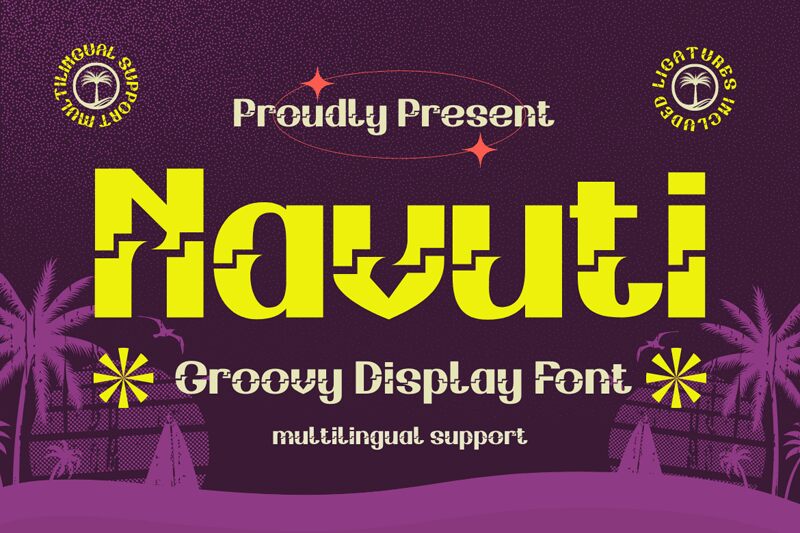
Navuti, designed by Twinletter, is a bold and fun display font that brings a touch of flair to any creative project. Its contemporary design and unique shape make it perfect for branding, product packaging, and editorial work. The bold weight of the font adds a sense of confidence and modernity to any design, making it versatile for a wide range of projects.
With Navuti, you can add an element of elegance and style to your designs, whether you're creating eye-catching logos or attention-grabbing headlines. Its groovy aesthetic sets it apart from other fonts, making it an ideal choice for those looking to make a statement with their typography.
Whether you're working on a digital ad campaign or designing merchandise, Navuti's bold and playful style will elevate your work and leave a lasting impression on your audience. Incorporate this unique font into your designs today and watch them come to life with personality and charm.